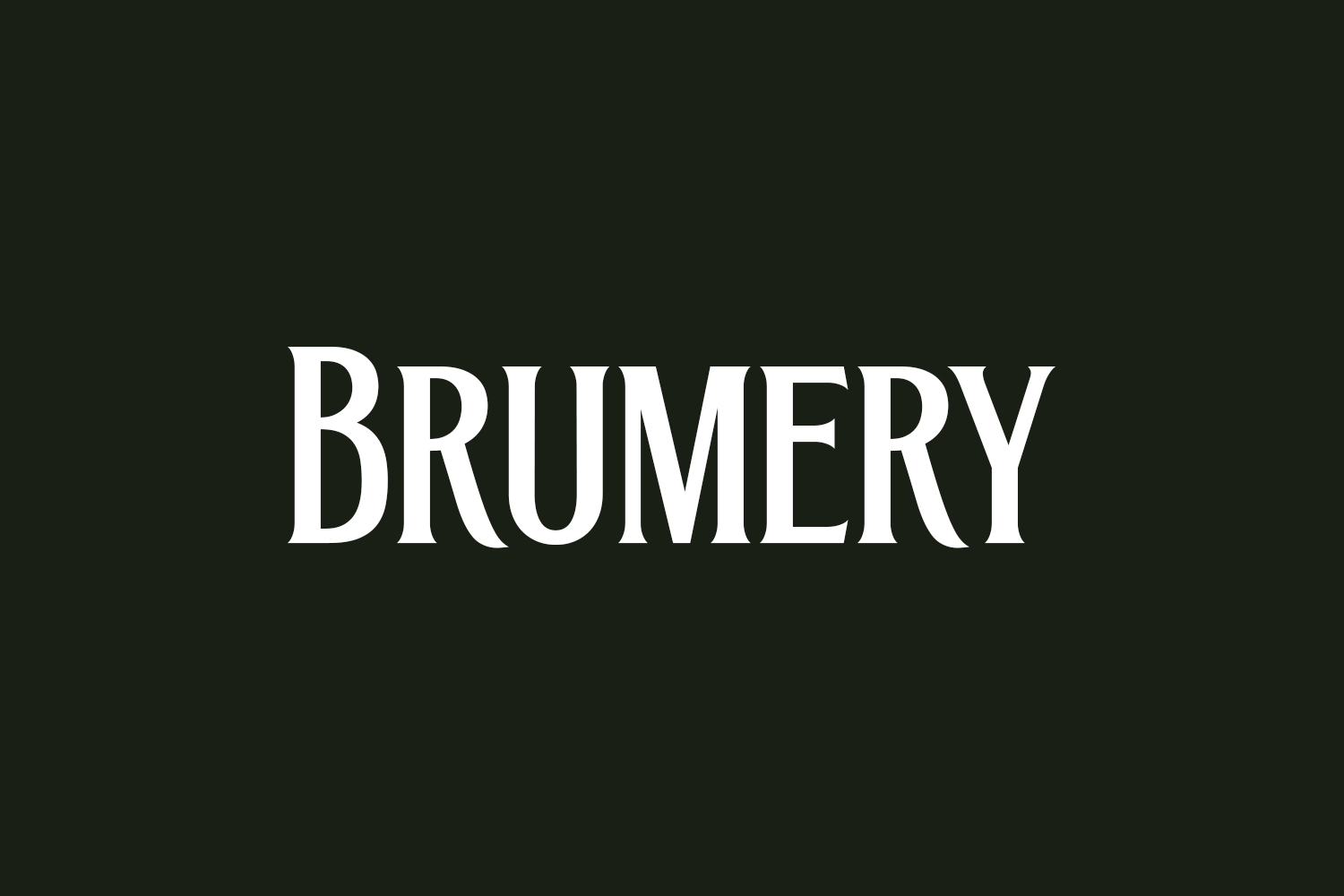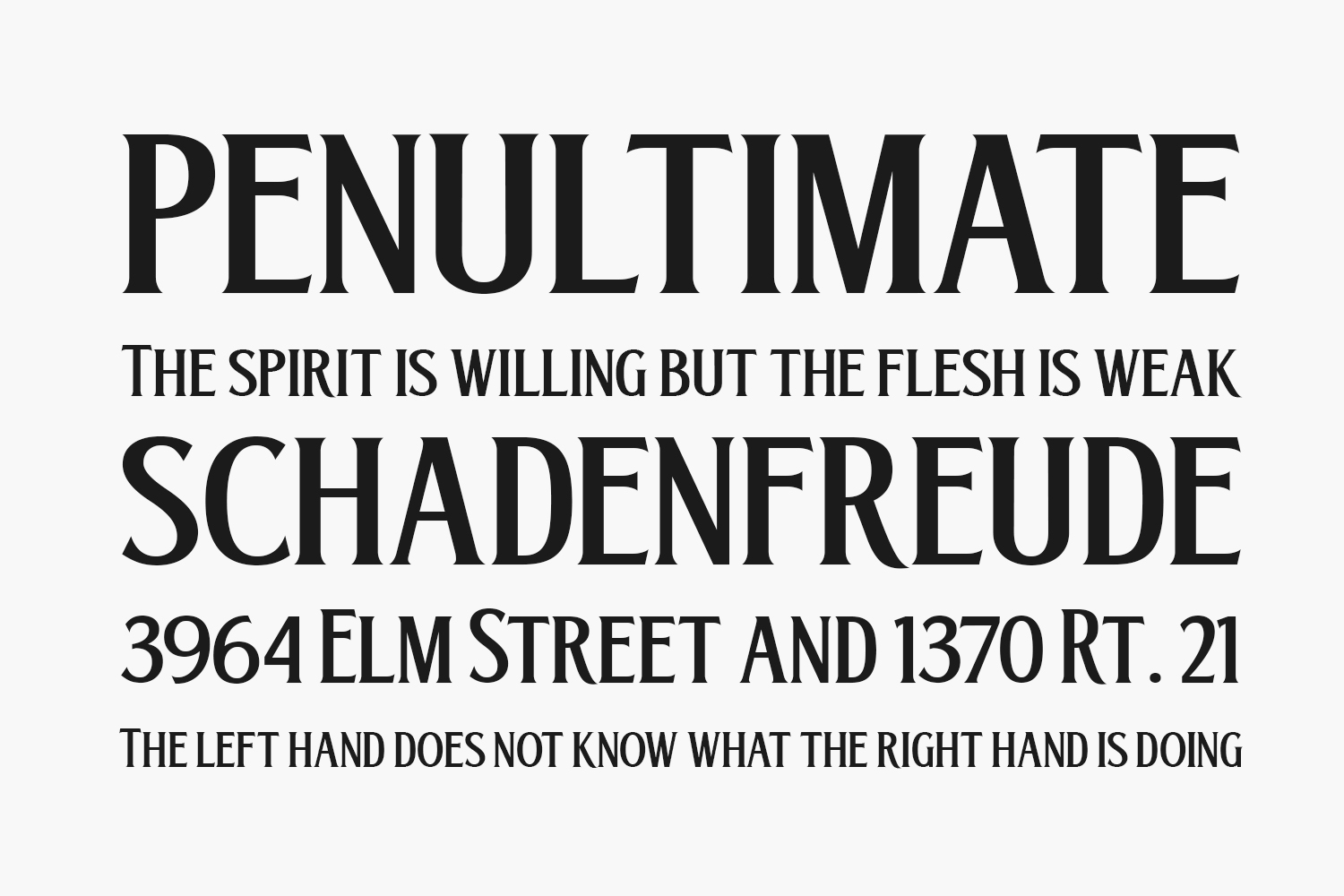
Brumery Free Font is a sophisticated condensed serif font, stands out as a valuable addition to your font library. Its sleek design makes it an exceptional asset that holds the potential to enhance the visual appeal of any creative endeavor, regardless of the subject matter. Brumery Free Font was designed by Letterhend Studio and is free for personal use only. Please purchase the full version for commercial use.